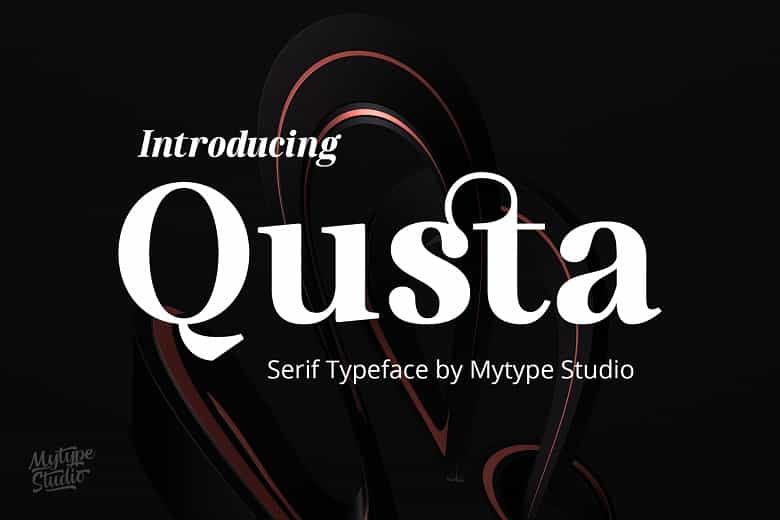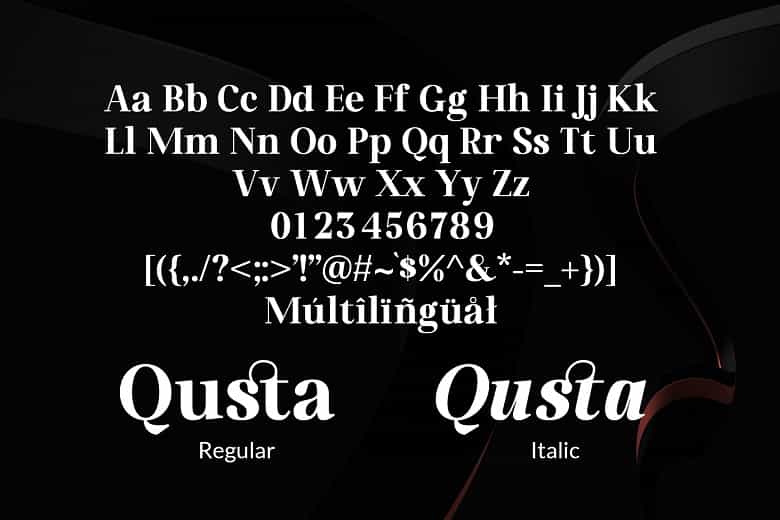
Qusta is a new serif font that has a touch of elegance and playfulness to it in every one of its glyphs. It is ideal for luxury logos, brands, elegant editorial designs, woman’s magazines, cosmetics brands, promotion, fashion, and many more.